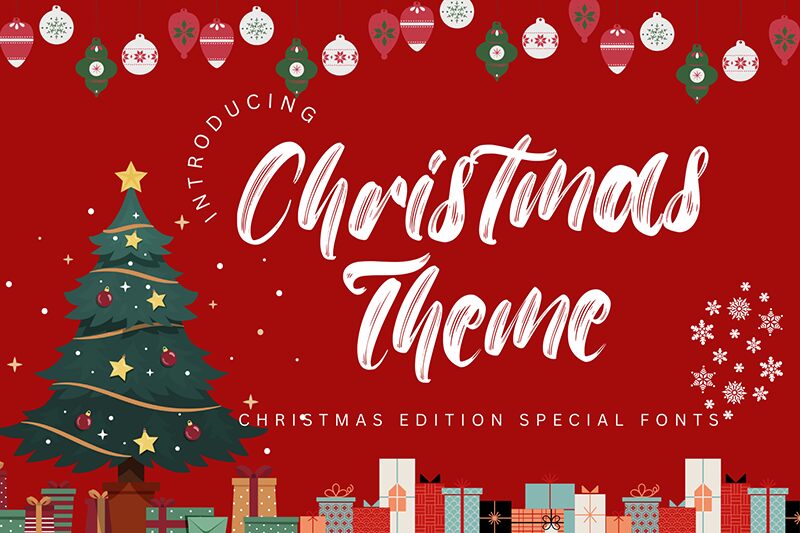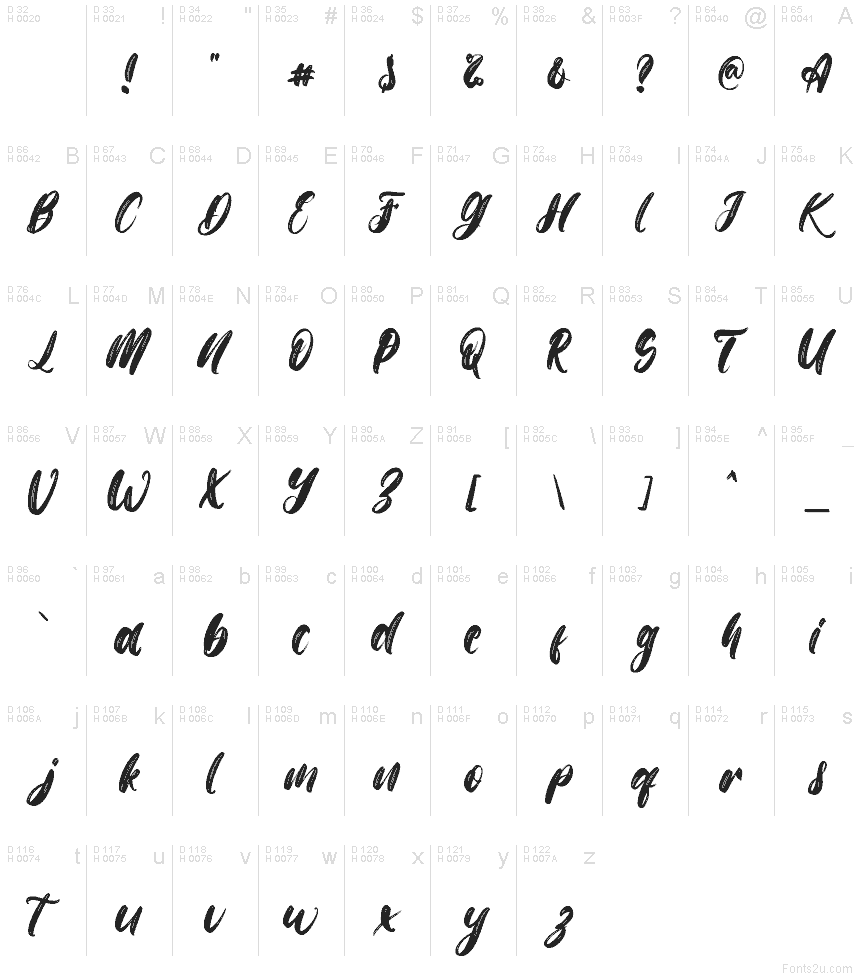
Christmas Theme
Christmas Theme font by Sarif Letter is a free Christmas brush script typeface that captures that cozy, hand-lettered holiday feel. Thick, inky strokes and a slightly rough texture make it look like fresh brush lettering on kraft paper, full of movement and warmth. The letters flow together in an easy rhythm, giving your layouts an instant festive headline without feeling stiff or overpolished.
Using Christmas Theme, your holiday projects—greeting cards, gift tags, social media posts, party invitations, seasonal logos, product packaging, and printable decor—instantly feel more personal and crafted. This free font shines in larger sizes where its brush texture can really show. Pair it with a clean, simple sans serif for body text to keep your designs readable while letting the script do the storytelling.